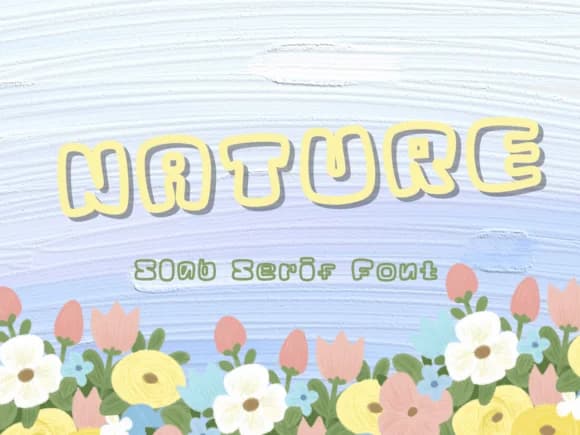
About Nature Font
Nature, designed by Pukka De, uses chunky slab serifs and rounded letterforms to create something that feels both structured and genuinely approachable. The bold weight combined with soft character edges makes each letter immediately readable, even when scaled down or used in tight layouts where clarity matters. This particular marriage of weight and warmth is what makes the typeface function reliably across different contexts and applications without sacrificing its personality or charm.
The font excels for children's book covers, classroom learning posters, birthday party invitation suites, and merchandise labeling on kids' clothing lines. It's equally suited to DIY craft templates, sticker sheet designs, educational worksheets, and product packaging for toy or children's brand ranges. The chunky letterforms give every project visual presence while maintaining legibility for body text in longer reading materials and learning environments. Teachers, children's book publishers, and freelance designers focused on young audiences will immediately recognize how this typeface covers their most common needs and everyday demands.
Nature Font is a slab serif font that shines as a display or heading face. Pair it with a clean sans-serif or serif font for body text β the contrast creates a clear hierarchy while the two styles stay balanced and easy to read.
Nature Font
by Pukka De